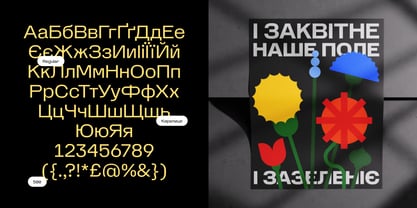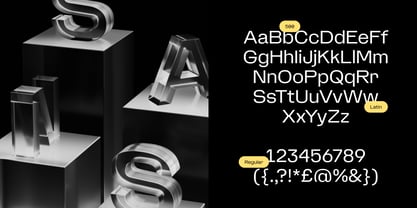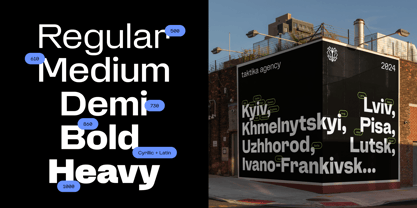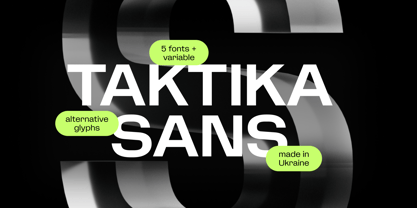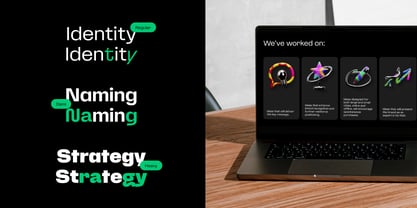
Taktika Sans
by Typetika
The Taktika Sans Font Family was designed by Maksym Kobuzan and published by Typetika. Taktika Sans contains 6 styles and family package options.
Taktika Sans – Precision Meets Humanity
Taktika Sans is a modern grotesque that strikes a perfect balance between technological precision and humanistic warmth. While its foundation is rooted in mid-20th-century neo-grotesques, it also draws inspiration from the expressive, sci-fi typography of the 1960s and 70s. The result is a typeface that feels both structured and dynamic, blending geometric rigidity with fluid, organic details.
Available in five weights – from Regular to Heavy – along with a variable version, Taktika Sans adapts seamlessly to various design needs. Its uppercase characters are bold and expansive, with a slightly elevated center that adds a sense of monumentality. A defining feature of the typeface is its rectangular inner counters, which contrast with smoother outer curves, creating a distinctive and contemporary rhythm.
Taktika Sans also incorporates sharp ink traps, enhancing both its visual impact at large sizes and its legibility at smaller text settings. Additionally, it includes an extensive set of alternate characters and arrows, inspired by retro-futuristic aesthetics, allowing for creative flexibility across different projects.
Perfect for branding, UI/UX design, technology-focused applications, and editorial projects, Taktika Sans is a versatile choice for designers seeking a typeface that merges precision with personality. If you’re looking for a font that balances structure and expressiveness, Taktika Sans is your ideal solution.
About Typetika
Typetika is a forward-thinking type foundry and the dedicated typographic unit of Taktika, a leading design agency in Ukraine. We collaborate with top Ukrainian type designers to craft striking, high-quality display typefaces that make a bold statement. Our expertise lies in creating expressive, distinctive, and versatile letterforms that empower brands and creatives to communicate with confidence. With a commitment to innovation and craftsmanship, typetika aims to enrich the global design landscape with exceptional Ukrainian typefaces.